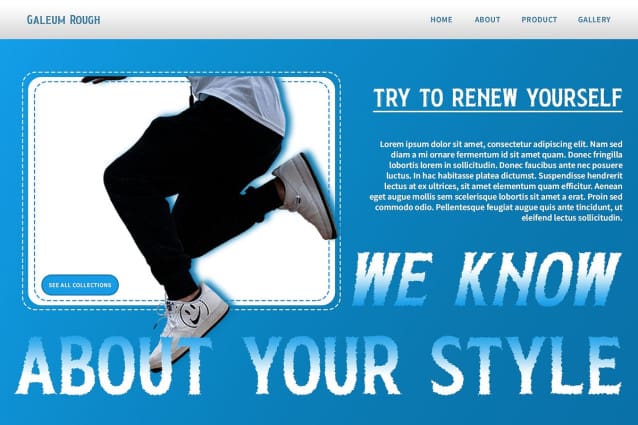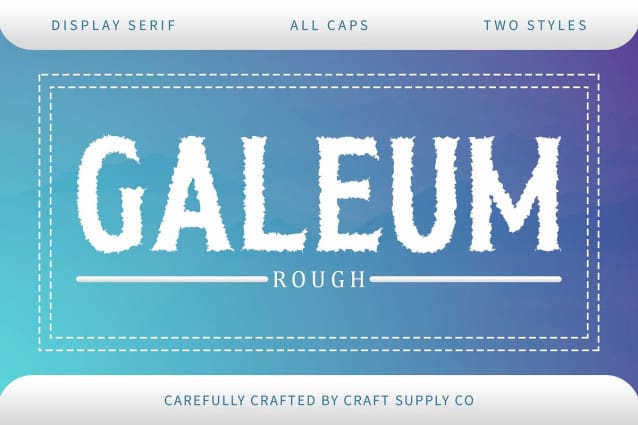
Galeum Rough Font
Galeum Rough Font: Adding Character to Display Typography. A Blend of Serif and Roughness Galeum Rough presents a unique blend of serif typography with rough texture effects. This combination adds character and depth to any display project, setting it apart from the ordinary.
Moderate Contrast for Balance Featuring moderate contrast, This font strikes a delicate balance between elegance and ruggedness. The subtle variations in stroke thickness create visual interest without overpowering the overall design.
Ideal for Display Purposes Tailored for display purposes, This font thrives in various applications, including posters, headlines, and branding materials. Its distinctive appearance grabs attention and conveys a sense of authenticity.
Versatile and Eye-Catching With its rough texture and serif structure, This font offers versatility and visual appeal. Whether used in digital or print media, it adds a touch of personality and charm to any project.
Uniquely Textured Display Typography This font stands out as a versatile and visually appealing display font. Its blend of serif typography and rough texture effects creates a distinctive look that adds character and authenticity to any design. Explore the world of This font and elevate your display typography game.